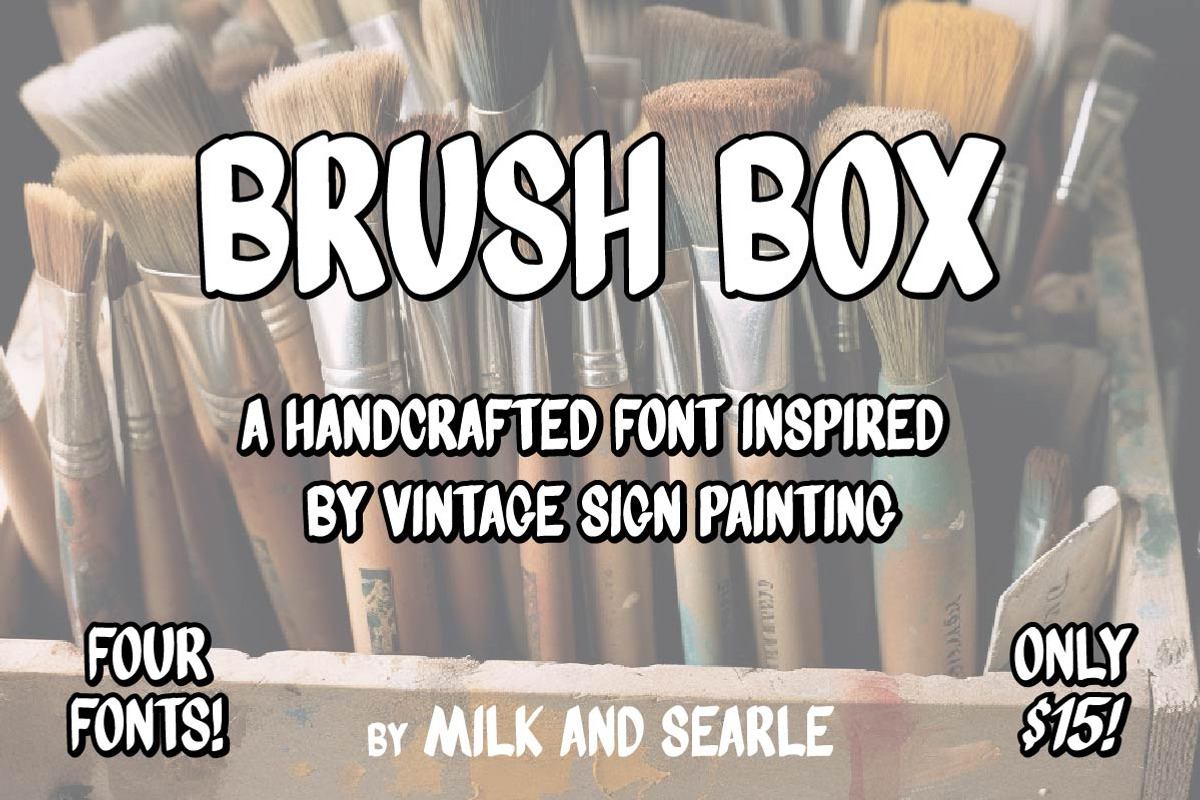
Brush Box Font – By Milk and Searle Free Download is a bold, hand-painted typeface that brings energy and raw expression to your designs. With its thick brush strokes and organic texture, this font is perfect for posters, branding, social media graphics, product packaging, and any creative project that needs an authentic, handcrafted vibe. Designed by the talented team at Milk and Searle, Brush Box is both edgy and artistic.
This font stands out in both print and digital formats, offering versatility and a modern flair that suits everything from fashion to lifestyle content. Whether you’re crafting a streetwear logo or a bold Instagram quote, Brush Box adds personality with every letter. Feel free to test it out with a free download—but if you're planning to use it commercially, a proper license is required.
Don’t miss your chance to try Brush Box Font – By Milk and Searle Free Download and bring a splash of creative attitude to your next design. It’s a must-have for designers who love expressive, brush-style typography that packs a punch.